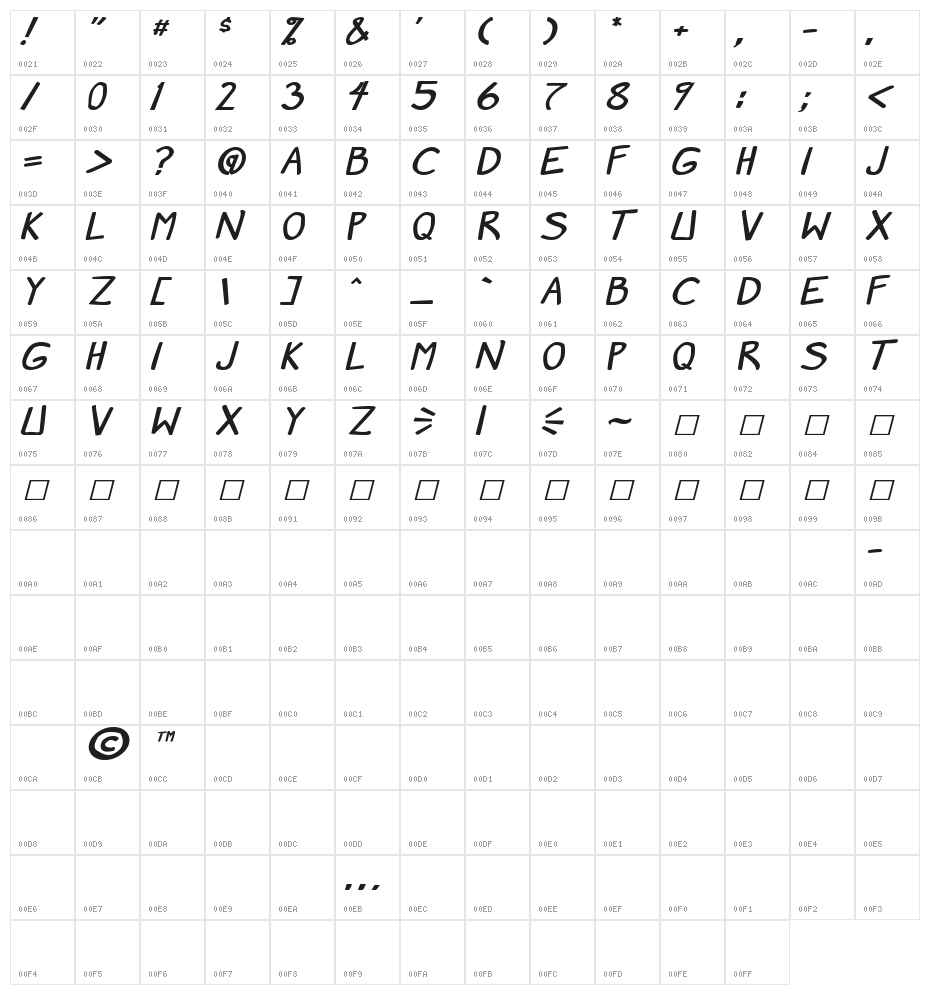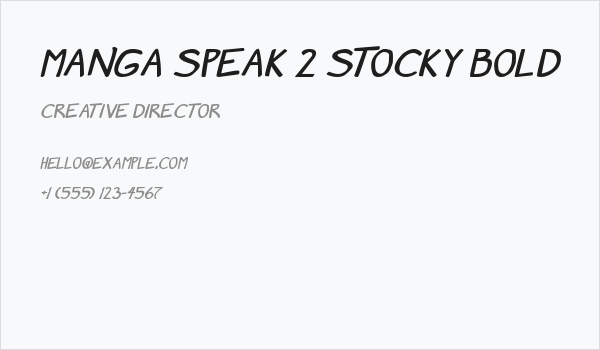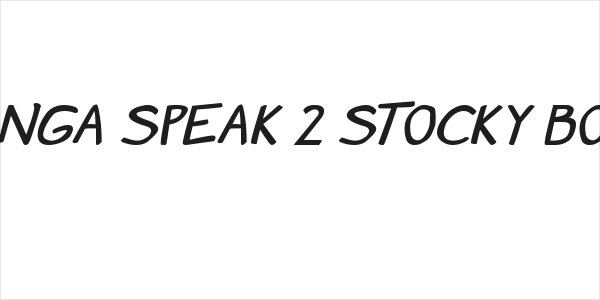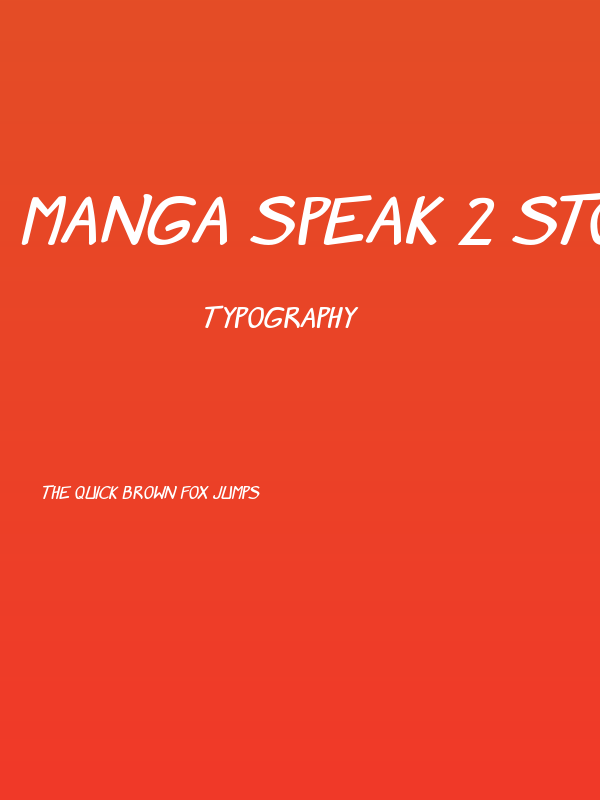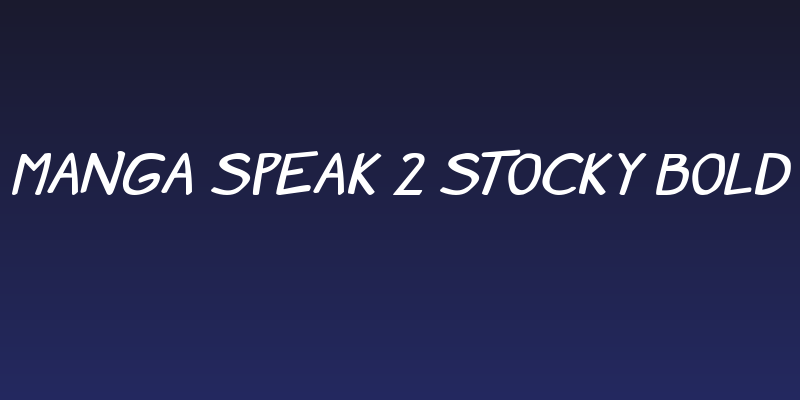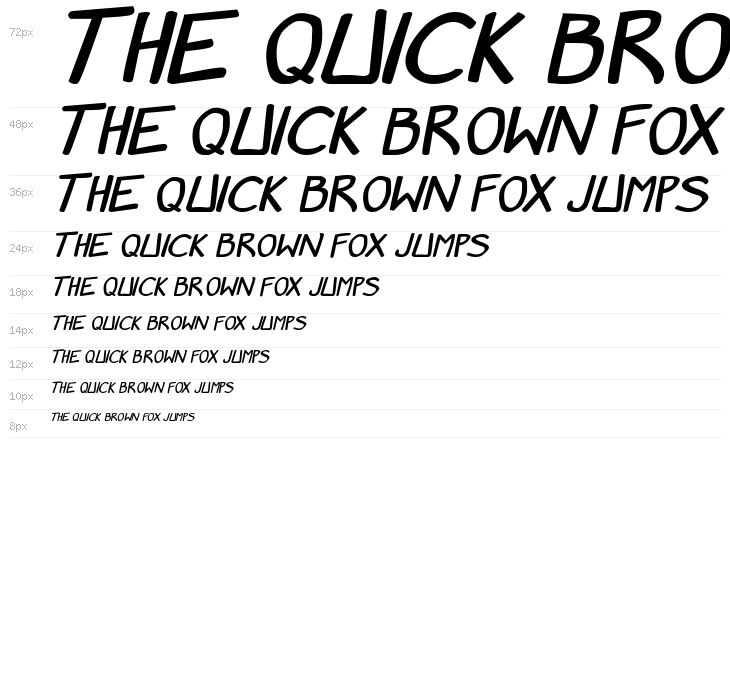
Manga speak 2 stocky Bold Font
Manga speak 2 stocky Bold Description
This font features a bold and dynamic style with a handwritten appearance, characterized by its thick strokes and slightly slanted letters. The uppercase and lowercase letters maintain a consistent flow, giving it an energetic and informal look. The numbers and special characters are crafted with the same boldness, ensuring uniformity across all glyphs. The font's playful yet assertive nature makes it suitable for projects that require a touch of personality and flair. Its boldness ensures readability while maintaining a unique aesthetic.
| Proposed Projects | Ideal for comic books, graphic novels, posters, and branding materials that require a lively and bold typeface. |